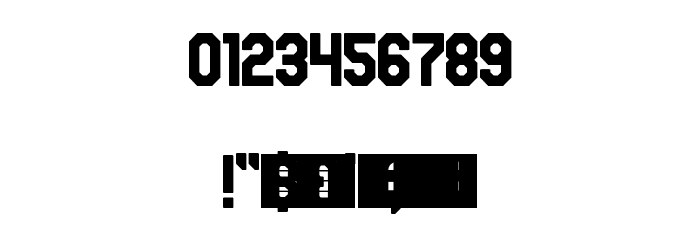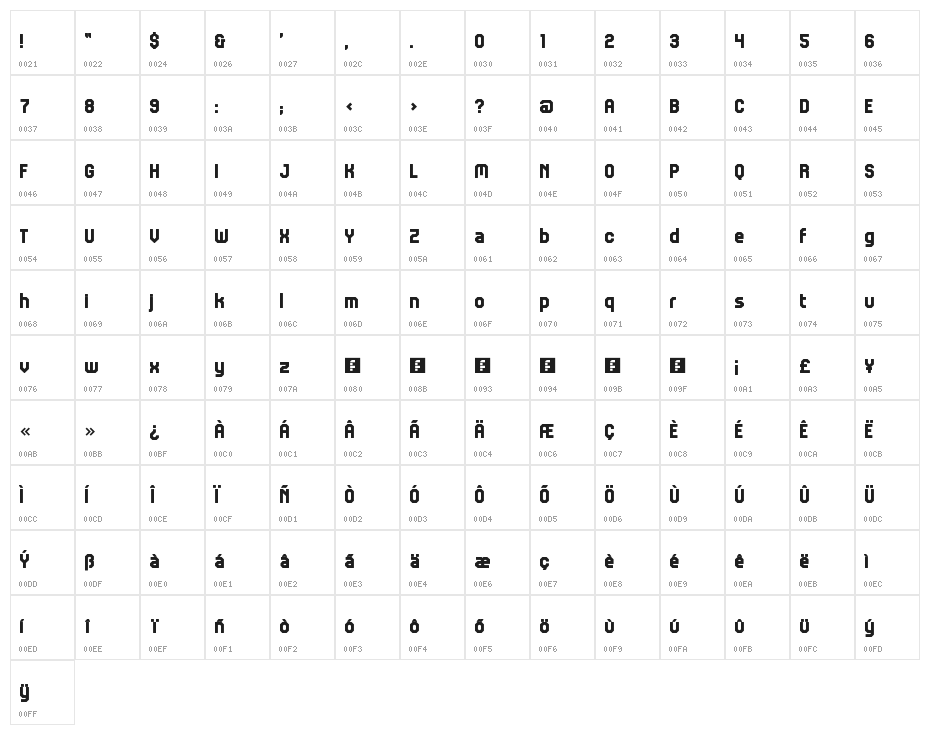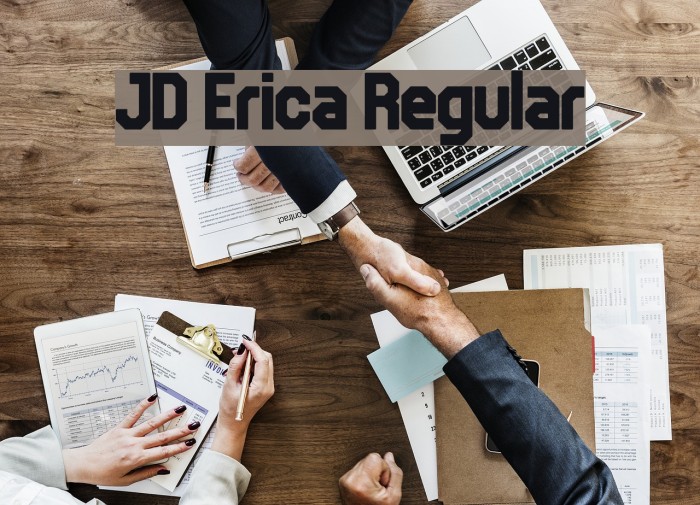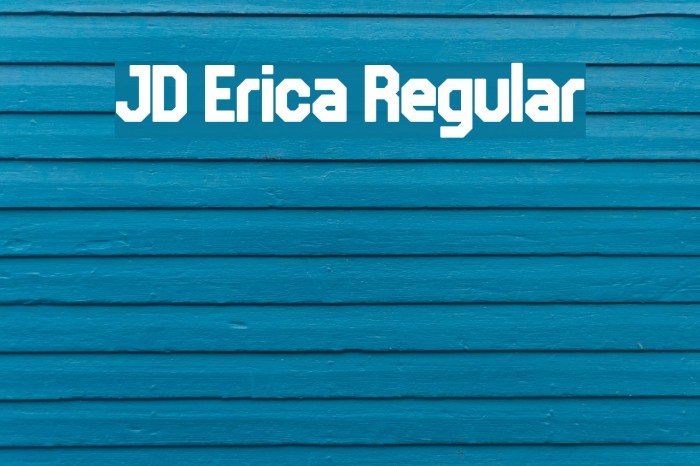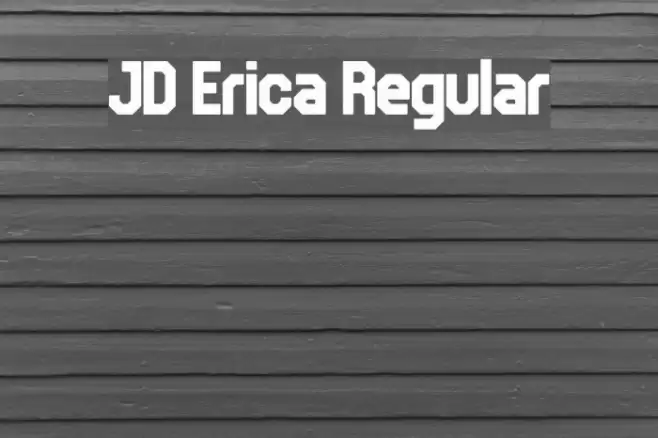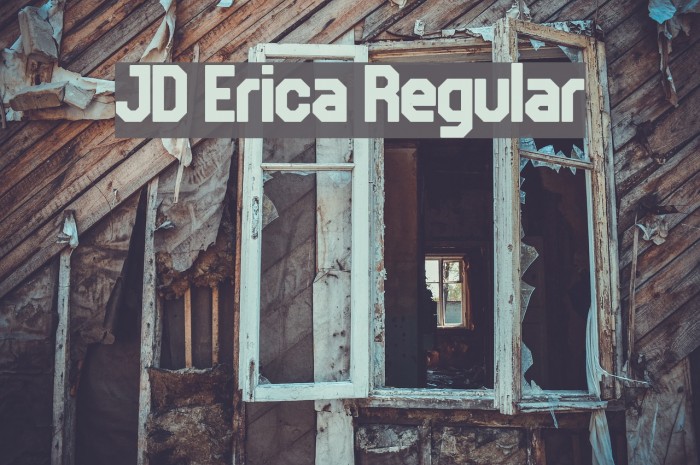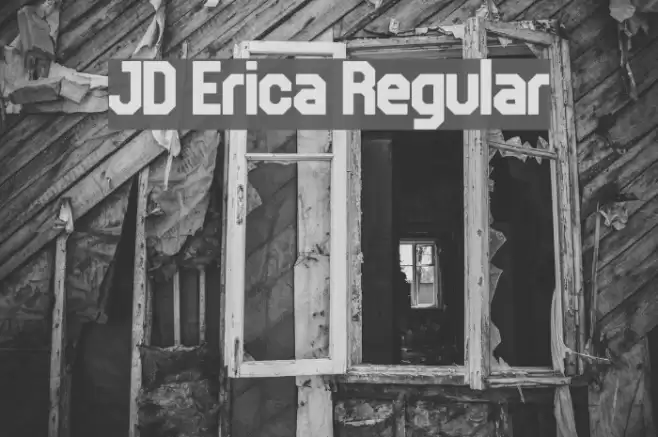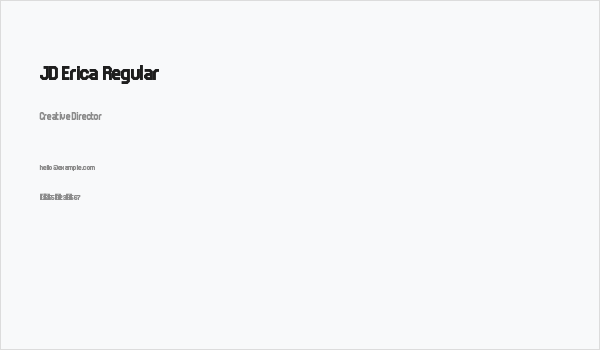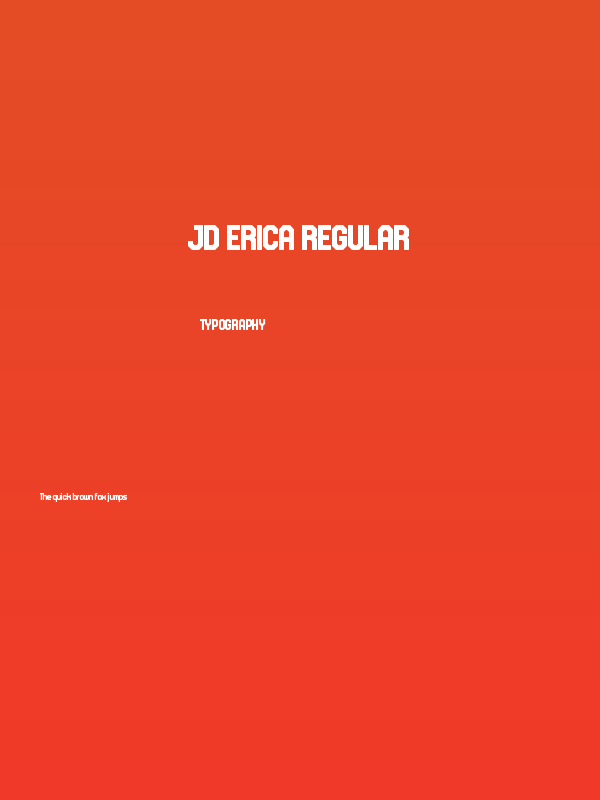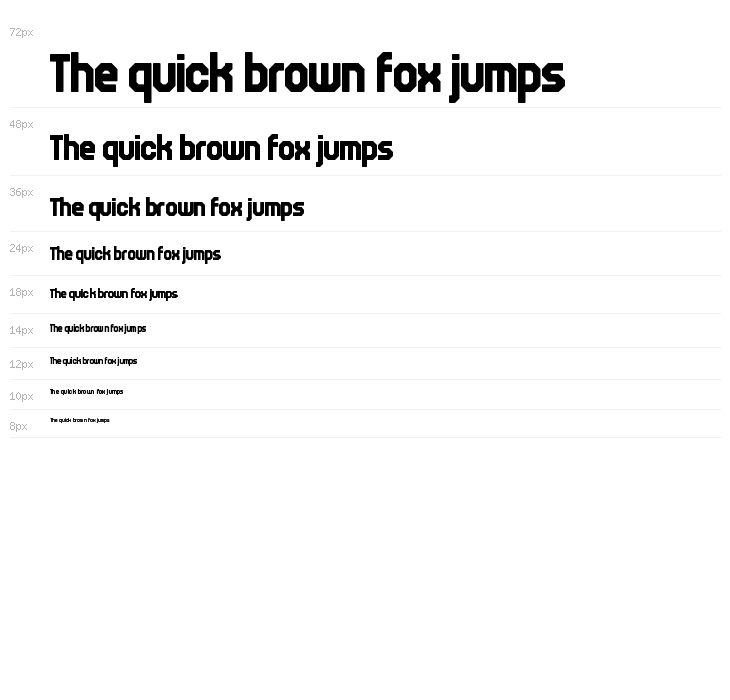
JD Erica Regular Font
JD Erica Regular Description
This font features a bold and geometric design with a strong, angular appearance. The characters are crafted with consistent stroke widths, giving them a uniform and structured look. The uppercase letters are particularly striking, with sharp edges and a modern aesthetic. The lowercase letters maintain the same geometric style, ensuring readability while adding a touch of uniqueness. The numerals are clear and bold, matching the overall style of the alphabet. Special characters are also included, designed to complement the font's bold and structured appearance. This font is ideal for projects that require a modern and impactful look.
| Proposed Projects | Ideal for branding, posters, headlines, and digital media where a strong visual impact is desired. |